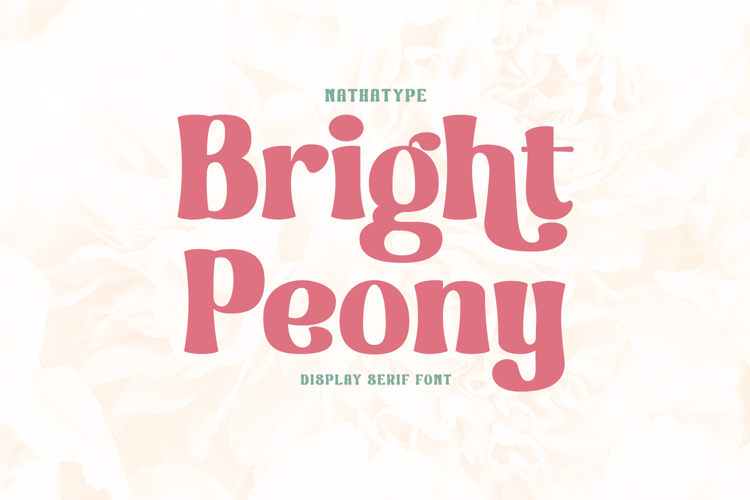
Bright Peony Font
Product Description:
Bright Peony is a lovely display serif font to show friendly, feminim, modern nuances. It is truly legible due to its high contrast and simply noticeable forms. Therefore, you can apply this font for any text sizes and lengths.
Features:
• Stylistic Alternates
• Ligatures
• Multilingual Supports
• Numerals and Punctuations